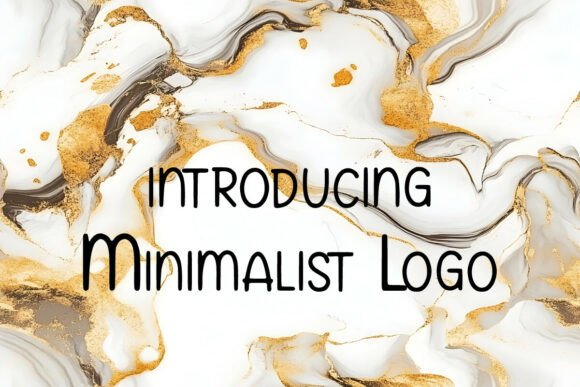
Discover the Elegance of Minimalist Logo Font: Elevate Your Brand with Timeless Sophistication
In the realm of typography, the Minimalist Logo Font has emerged as a game-changer, offering a perfect blend of simplicity and sophistication. This versatile font is designed to cater to a wide array of creative needs, making it an ideal choice for brands looking to make a lasting impression. Whether you’re looking to revamp your clothing line, enhance your magazine layouts, or simply elevate your online presence, the Minimalist Logo Font is the perfect companion.
The Versatility of Minimalist Logo Font
One of the standout features of the Minimalist Logo Font is its incredible versatility. This font is not limited to a specific medium or platform; instead, it seamlessly integrates with various creative projects. For clothing brands, especially those focusing on stylish shirts, this font lends an air of elegance and sophistication. The clean lines and simple design make it perfect for creating memorable brand logos that stand out in a crowded market.
Perfect for Fashion and Clothing Brands
The fashion industry is all about aesthetics, and the Minimalist Logo Font delivers just that. Its elegant flair makes it an excellent choice for clothing brands looking to add a touch of sophistication to their products. Whether it’s a logo on a shirt or a tagline on a dress, this font ensures that your brand leaves a lasting impression on customers.
Elevate Your Sticker Designs and Magazine Layouts
Beyond clothing, the Minimalist Logo Font is also perfect for sticker designs and magazine layouts. Its sleek design adds a touch of refinement, making your stickers stand out and your magazine layouts look more sophisticated. Whether you’re creating promotional materials or publishing a magazine, this font ensures that your content looks professional and appealing.
Seamless Integration with Digital and Print Media
The Minimalist Logo Font is designed to work flawlessly across various media types, including digital and print. Its compatibility with SVG files makes it easy to use for web and digital applications, while its print-friendly design ensures that it looks great in physical media as well.
Enhance Your Cricut Projects
For crafters and DIY enthusiasts working with Cricut machines, the Minimalist Logo Font offers a world of creative possibilities. Its clean and simple design makes it perfect for cutting and crafting, allowing you to bring your projects to life in a whole new way.
Perfect for Posters and Greeting Cards
When it comes to posters and greeting cards, the Minimalist Logo Font shines with its attractive simplicity. It pulls in attention and communicates your message effectively, making it an excellent choice for both personal and professional projects.
Boost Your Online Presence
In today’s digital age, having a strong online presence is crucial for brands. The Minimalist Logo Font can play a significant role in enhancing your online presence, making your brand more memorable and recognizable across social media platforms.
Create a Lasting Impression on Social Media
Social media is a crowded space, and standing out requires creativity and consistency. By using the Minimalist Logo Font across your social media profiles and content, you can create a cohesive and sophisticated brand image that resonates with your audience.
The Minimalist Logo Font is more than just a font; it’s a tool that can elevate your brand to new heights. Its versatility, elegance, and simplicity make it an excellent choice for a wide range of creative projects, from clothing and stickers to digital media and social content. By incorporating this font into your branding strategy, you can ensure that your message is communicated effectively and memorably, setting you apart in a competitive market.
Embrace the power of Minimalist Logo Font and discover how functional simplicity can meet modern aesthetics, creating a lasting impression on your audience.